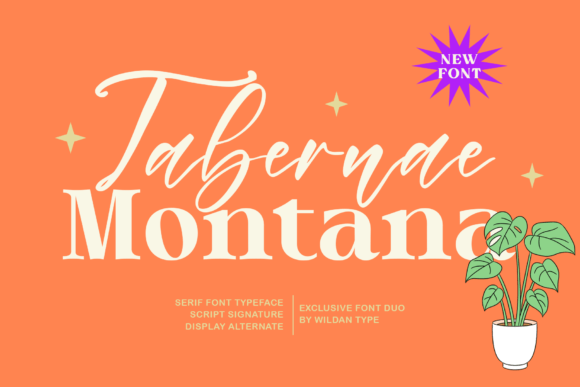
Unleash your creativity with Tabernae Montana, the captivating duo font that combines elegance and versatility. This extraordinary creation by Wildan Type features both serif and script variations, offering endless possibilities to elevate your designs to new heights.
With its delicate curves and refined details, Tabernae Montana effortlessly adds a touch of sophistication to any project. Its serif counterpart exudes a timeless charm, perfect for creating stunning logos, elegant invitations, or eye-catching headlines that demand attention.
The accompanying script font, with its flowing strokes and graceful flourishes, is an artistic masterpiece. Use it to craft breathtaking signatures for emails and letters, add a personal touch to your blog posts, or design enchanting social media posts that capture hearts.
More than just a font, Tabernae Montana is a gateway to a world of creative expression. Whether you're a seasoned designer or just starting out, this font will inspire you to create designs that resonate with your audience and leave a lasting impression.